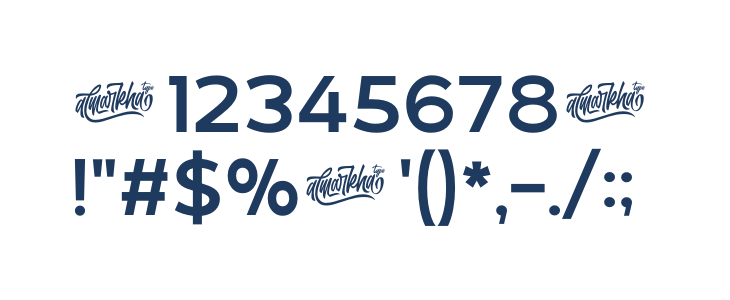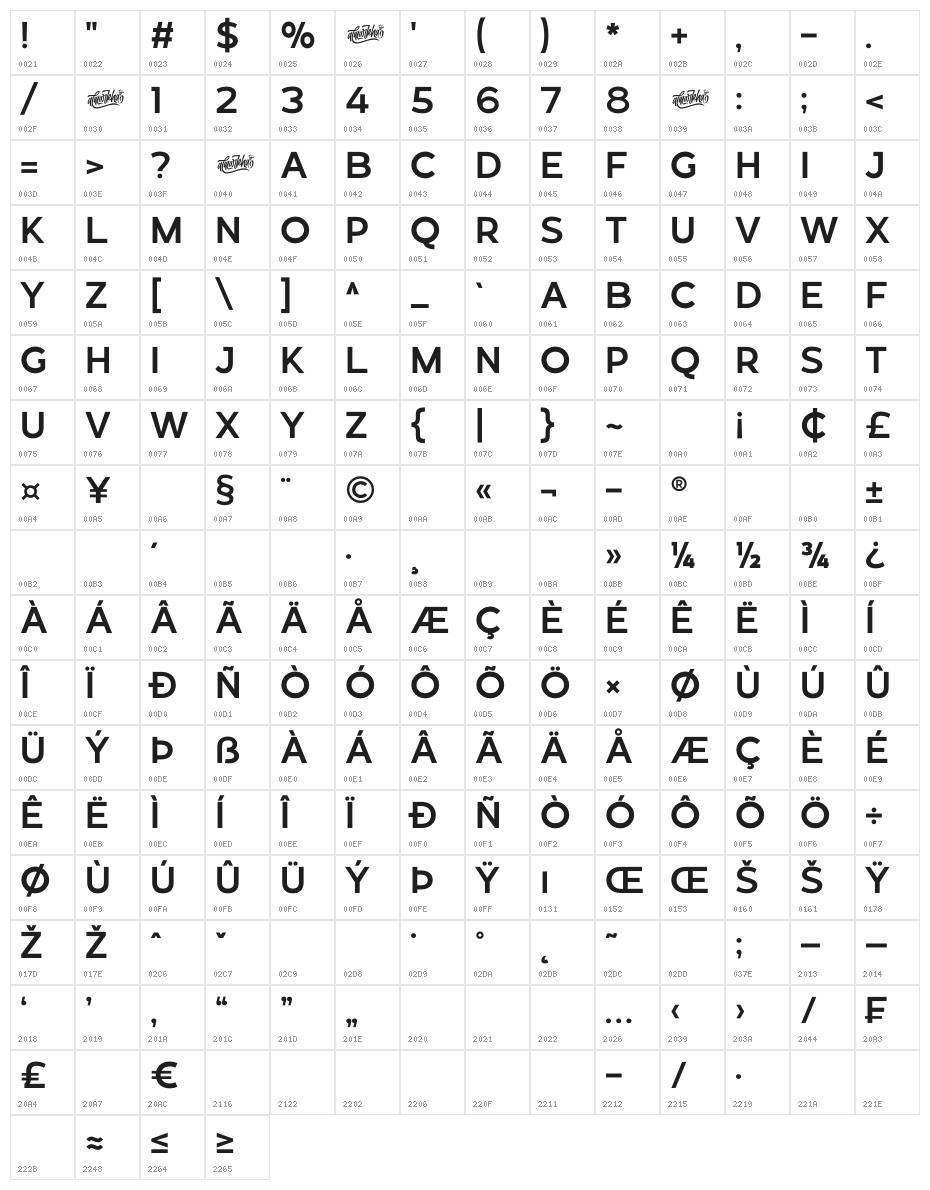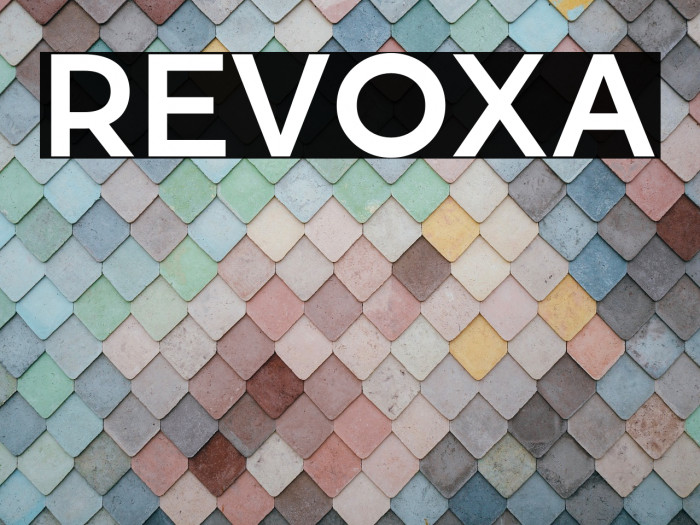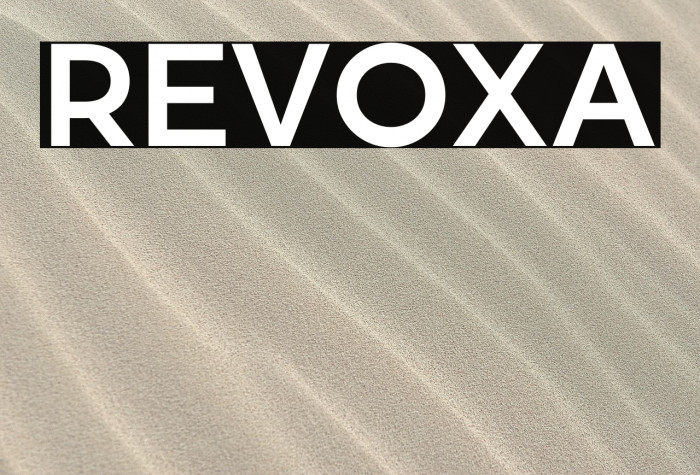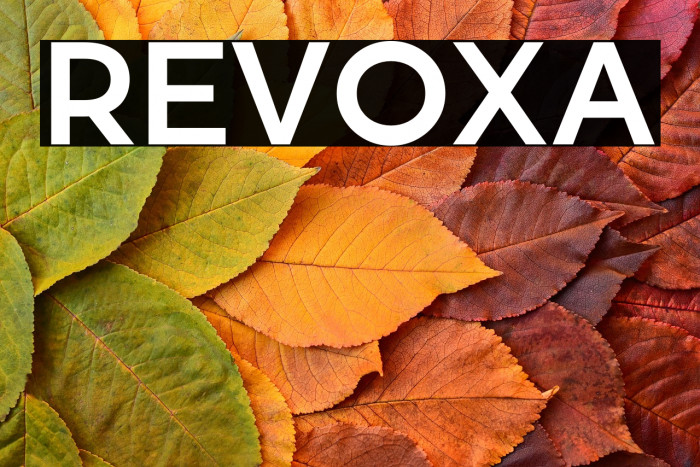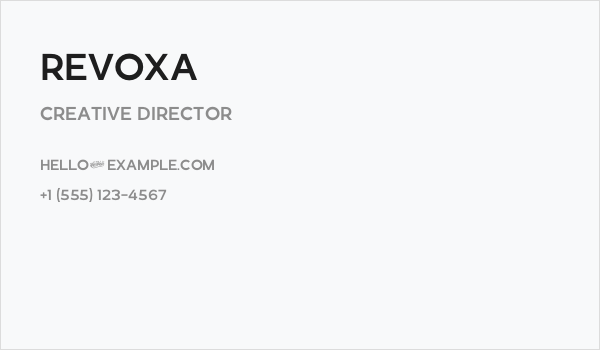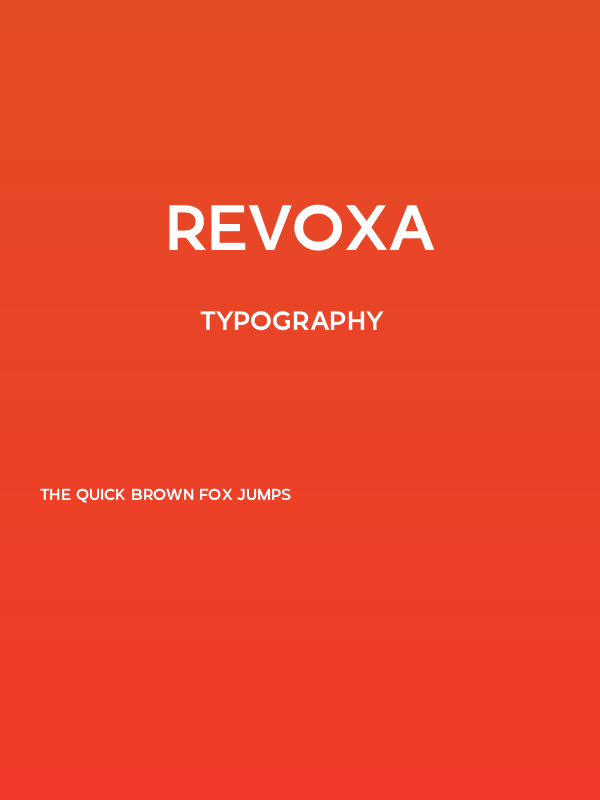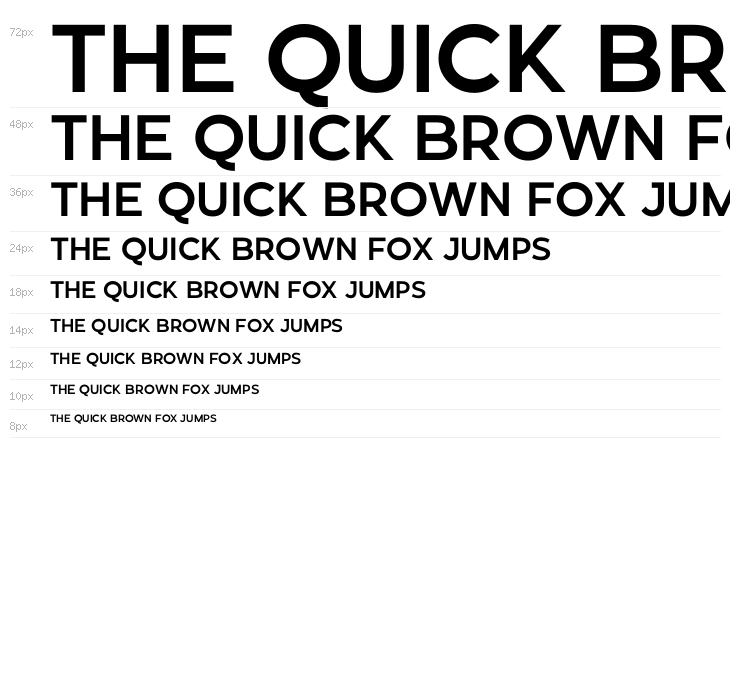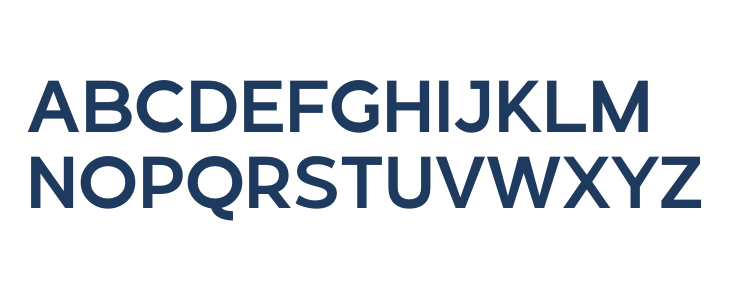
Revoxa Font
Revoxa Description
This font features a bold and modern sans-serif style with clean, geometric lines and uniform stroke widths. The uppercase letters are strong and impactful, making them ideal for headlines and titles. The lowercase letters maintain the same boldness, ensuring readability and consistency across different text sizes. The numerals are clear and distinct, matching the overall aesthetic of the alphabet. Special characters are included, maintaining the same bold and modern design. This font is versatile and can be used in various design projects requiring a contemporary and professional look.